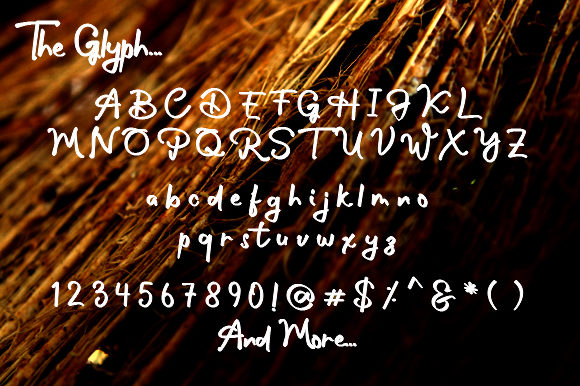
Introduction to Shaynee Font Font
Fonts play a crucial role in design, and the Shaynee Font font is a typeface that brings both character and versatility to any project. Whether you’re working on a branding project, a website, or a print design, the Shaynee Font font offers a unique style that can elevate your work.
Shaynee feels equally charming and elegant.
Whether youβre looking for fonts for Instagram or calligraphy scripts for DIY projects, this handwritten font will turn any creative idea into a true piece of art .
Key Features of Shaynee Font Font
Why Choose Shaynee Font Font?
The Shaynee Font font is more than just a typeface β it’s a design tool that helps you communicate your message with style and clarity. Its unique character set and versatile design make it suitable for a wide range of applications, from elegant invitations to bold headlines.
With its carefully crafted letterforms and balanced proportions, the Shaynee Font font ensures readability and visual appeal across all mediums.
What makes Shaynee Font font special?
The Shaynee Font font stands out with its unique design, exceptional readability, and versatility across various design applications.